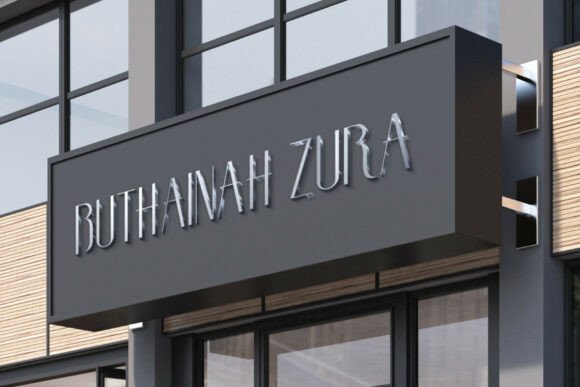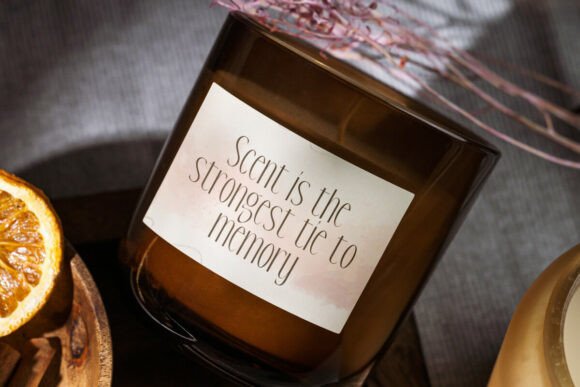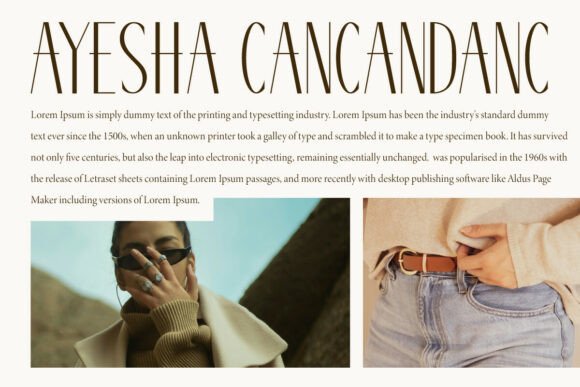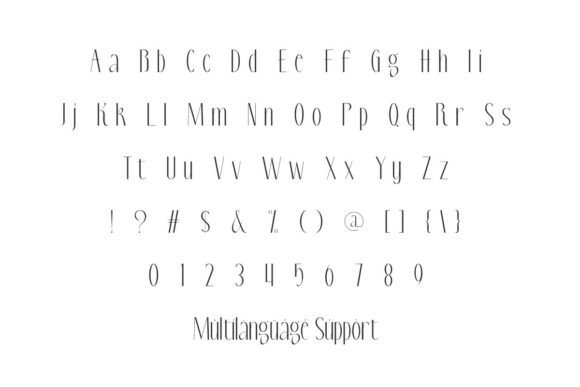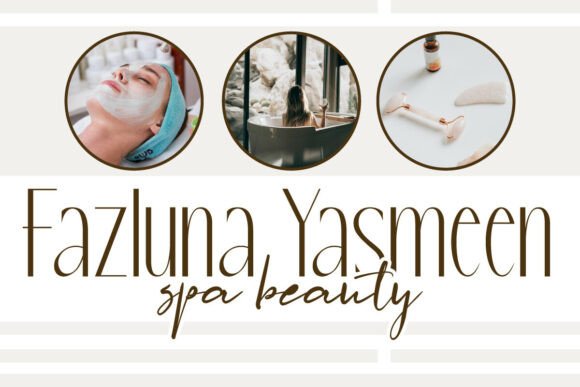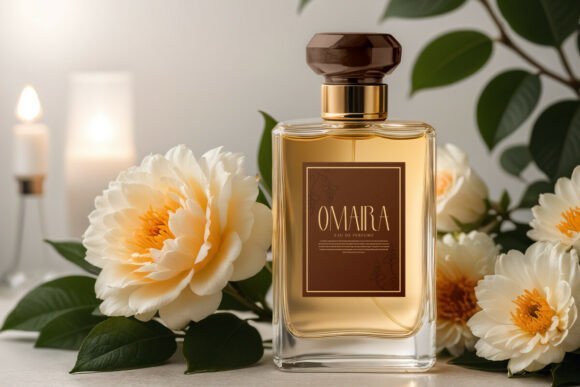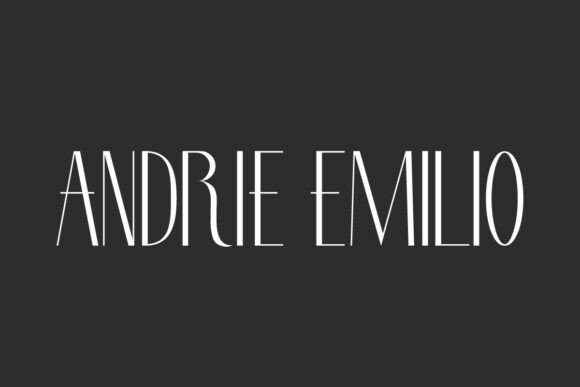
Introducing Andrie Emilio Font: Elevate Your Designs with Elegance and Sophistication
In the world of typography, a font can make or break the visual appeal of a design. For designers and crafters seeking a modern sans serif font that exudes beauty, class, and elegance, Andrie Emilio Font is an exceptional choice. This stunning typeface features geometric shapes that create a sleek visual aesthetic, perfect for a wide range of projects.
Key Features of Andrie Emilio Font
- Modern Sans Serif Design: Andrie Emilio Font boasts a contemporary sans serif design that feels both fresh and sophisticated.
- Geometric Shapes: The font’s geometric shapes contribute to its sleek and elegant appearance, making it suitable for designs that require a touch of refinement.
- Comprehensive Character Set: Andrie Emilio Font includes a full set of uppercase and lowercase basic characters, numerals, punctuation, and symbols, ensuring versatility for various design applications.
Andrie Emilio Font’s versatility makes it an ideal choice for numerous design projects, including:
- Advertisements: Create eye-catching ads that convey a sense of luxury and sophistication.
- Blogs: Enhance your blog’s typography with a modern and elegant font that engages readers.
- Branding: Establish a strong brand identity with Andrie Emilio Font’s sleek and professional appearance.
- Gift Boxes: Add a touch of elegance to your gift box designs with this beautiful sans serif font.
- Invitations: Create stunning invitations for special occasions, such as weddings, parties, or corporate events.
- Labels: Design labels that exude sophistication and refinement.
- Layout Design: Use Andrie Emilio Font to create visually appealing layouts for magazines, brochures, or flyers.
- Quotes: Highlight inspiring quotes with a beautiful and elegant font.
- Signboards: Create eye-catching signboards that showcase your brand’s personality.
- Template Design: Use Andrie Emilio Font to create stunning templates for various design applications.
- Websites: Enhance your website’s typography with a modern and elegant font that engages visitors.
Industry-Specific Applications
Andrie Emilio Font is particularly well-suited for industries that value elegance, sophistication, and refinement. Some examples include:
- Accessories and Jewelry: Showcase your luxury accessories and jewelry with a font that exudes elegance.
- Cosmetic: Create stunning cosmetic packaging and advertisements with Andrie Emilio Font.
- Event or Wedding Organizer: Use this font to create beautiful invitations, programs, and other event materials.
- Fashion: Enhance your fashion brand’s visual identity with a modern and sophisticated font.
- Florist: Create stunning floral arrangements and advertisements with Andrie Emilio Font.
- Furniture: Showcase your luxury furniture pieces with a font that conveys elegance and refinement.
- Real Estate: Use Andrie Emilio Font to create stunning property listings, advertisements, and marketing materials.
- Skincare: Create beautiful packaging and advertisements for your skincare products.
- Spa Salon: Enhance your spa or salon’s visual identity with a modern and elegant font.
Andrie Emilio Font is a versatile and elegant sans serif font that can elevate your designs to new heights. With its geometric shapes, comprehensive character set, and modern aesthetic, this font is perfect for a wide range of projects and industries. Whether you’re a designer, crafter, or business owner, Andrie Emilio Font is an excellent choice for anyone seeking to add a touch of sophistication and refinement to their visual identity.